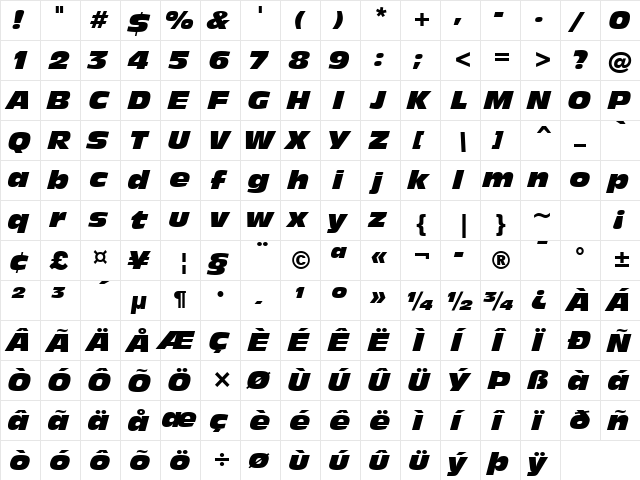
Incised901 NdIt BT Italic
Incised901 NdIt BT offers clean, dependable letterforms without strong stylistic allegiance, making it a practical choice for designers who need flexibility. The slanted form adds forward momentum and visual energy.